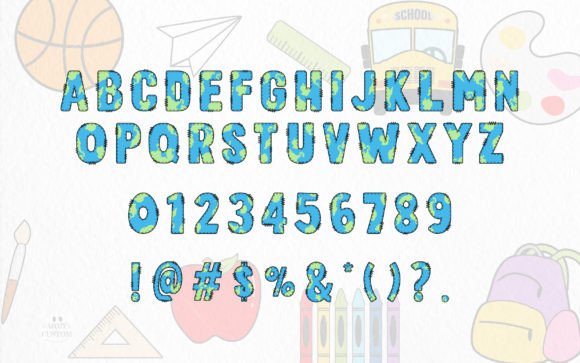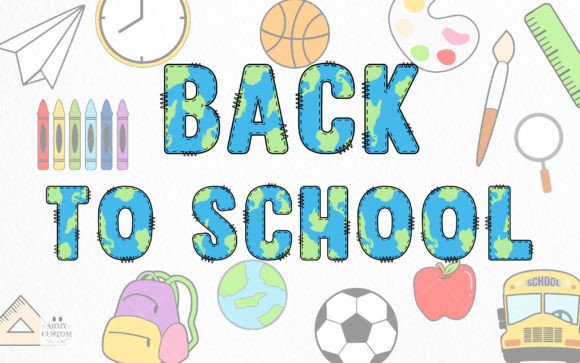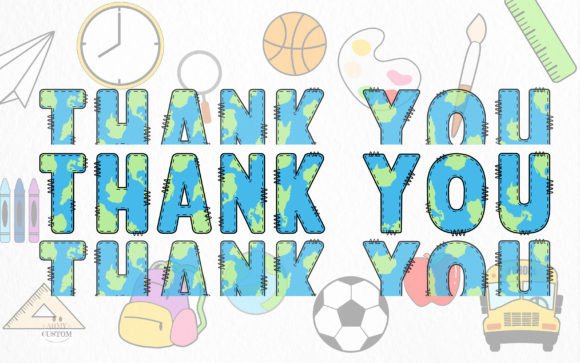
Introduction to Earth Army Font
As a designer, there’s nothing quite like the thrill of bringing a new project to life. You’ve poured over ideas, selected the perfect color palette, and finally, you’re ready to add the finishing touches. But what if you had a design resource that could elevate your work to the next level? Enter the Earth Army Font, a vibrant and versatile color font that’s perfect for adding a pop of personality to your creative projects.
With its unique blend of earthy tones and playful flair, the Earth Army Font is a valuable addition to any designer’s toolkit. Whether you’re working on a scrapbook page, a set of party invitations, or a blog banner, this font is sure to make a lasting impression. And with its high-quality design, you can trust that your work will look its best – every time.
Key Features of Earth Army Font
- High-quality design resource suitable for various creative projects.
- Unique, bold, and modern design style that can add an edgy touch to your designs.
- Perfect for use in digital art, graphic design, and other creative endeavors.
Honest Review: Earth Army Font
I recently came across the Earth Army Font, a free download that’s been gaining traction in the design community. As a designer, I was excited to put it to the test and see if it lives up to the hype.
What works well: ✨ The Earth Army Font is a high-quality design resource that’s perfect for any creative project. It’s got a unique, earthy feel that’s sure to add some character to your designs. The font is also highly customizable, with a transparent background that makes it easy to overlay on top of images or other design elements.
- Unique, earthy design aesthetic
- Transparent background for easy overlay
What doesn’t work so well: ⚠️ The font is a bit limited in its range of styles and weights, which may not be ideal for projects that require a lot of flexibility. Additionally, the font may not be compatible with all operating systems or design software.
Overall impression: I’m really impressed with the Earth Army Font, and I think it’s a great addition to any designer’s toolkit. While it may have some limitations, its unique design aesthetic and high level of customization make it a valuable resource for any creative project.
How to Use Earth Army Font
The Earth Army Font is a versatile design resource perfect for any creative project. With its unique aesthetic, it’s ideal for various applications, from branding to digital art.
Transparent Background
One of the benefits of the Earth Army Font is its transparent background, making it perfect for overlaying on images or videos.
The Earth Army Font is ideal for various applications, including:
- Digital art and graphics
For the best results, use the Earth Army Font in combination with other design elements, such as images and textures. Experiment with different font sizes and styles to create a unique look.
What makes the Earth Army Font a high-quality design resource?
The Earth Army Font is crafted with attention to detail and a focus on legibility. It features a unique, modern design aesthetic that’s perfect for a wide range of creative projects. With its high-quality glyphs and advanced font features, the Earth Army Font is an excellent addition to any designer’s toolkit.